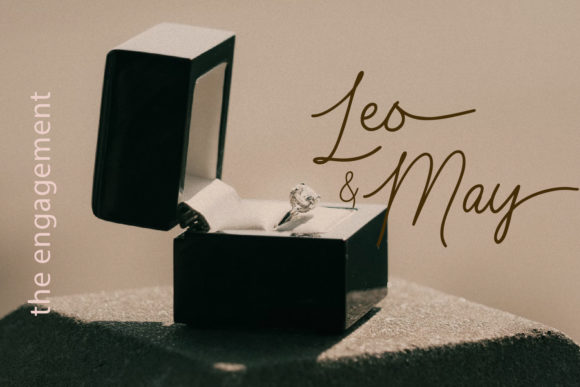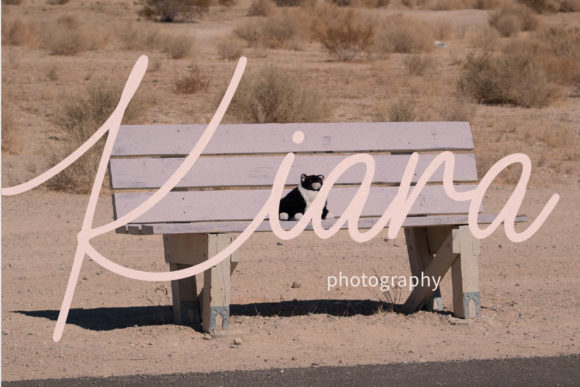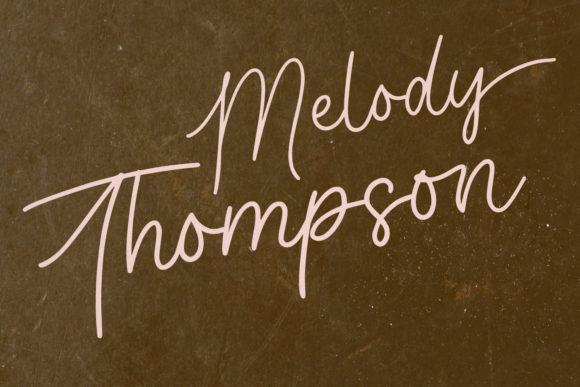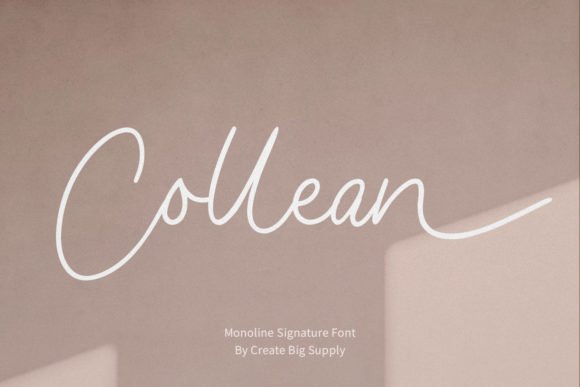
Collean is a handwritten, monoline-style Signature typeface.
Be mesmerized by its beautiful style, and use it to create beautiful wedding invitations, beautiful stationary art, eye-catching social media posts, and more This font is PUA encoded, which means you can access all the amazing glyphs and ligatures easily.
Collean Font offers exceptional quality and versatility, making it a valuable addition to your design toolkit. Whether you’re creating for personal projects or commercial use, Collean Font delivers professional results.